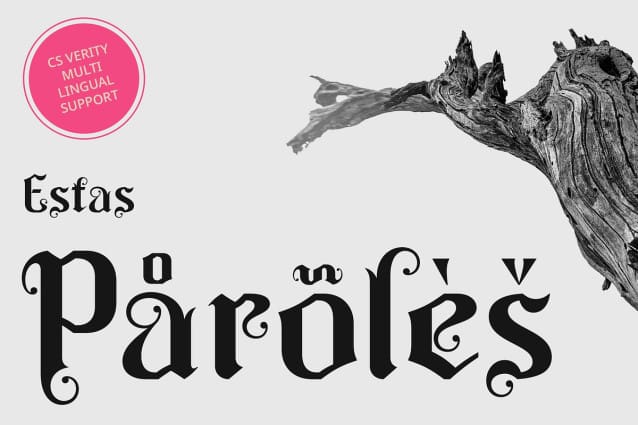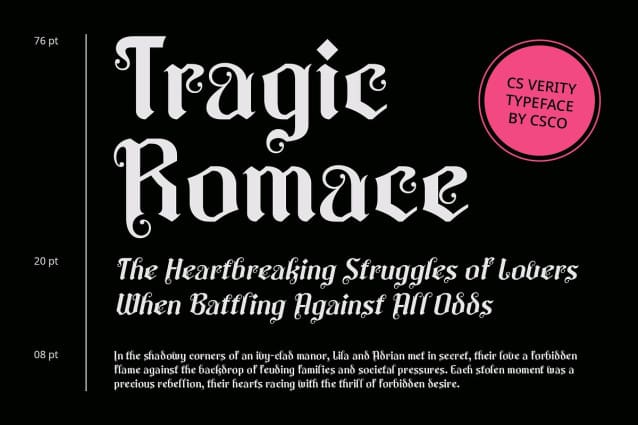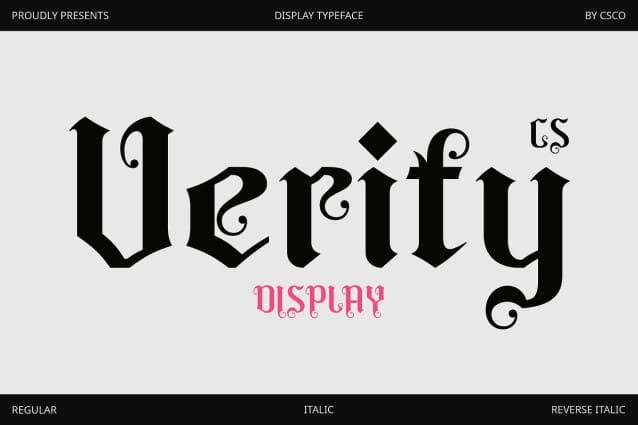
CS Verity Font
CS Verity Font is a distinctive display serif font that brings a fresh twist to Gothic typography. Characterized by its unique design, this font features letter ends shaped like tendrils, with smooth curves that create a coiling or intertwining effect. This Gothic-themed style merges traditional elements with decorative flourishes, adding a touch of mystery and artistry to your designs.
Mysterious and Captivating Impression The intricate tendrils and flowing curves of CS Verity create a mesmerizing visual experience. Each terminal or stroke end is adorned with elegant twists and turns, enhancing the font’s mystical and historical vibe. This blend of traditional Gothic aesthetics with modern, decorative details results in a strikingly unique appearance.
Ideal for Artistic and Unique Projects Perfect for headlines, logos, and any material requiring a strong, captivating character, CS Verity adds an artistic touch to your projects. Its ability to combine historical Gothic influences with contemporary flair makes it ideal for designs aiming to evoke a sense of intrigue and sophistication. Whether you’re creating mystical themes, historical references, or unique branding elements, this font ensures your visuals stand out with a bold and enchanting presence.